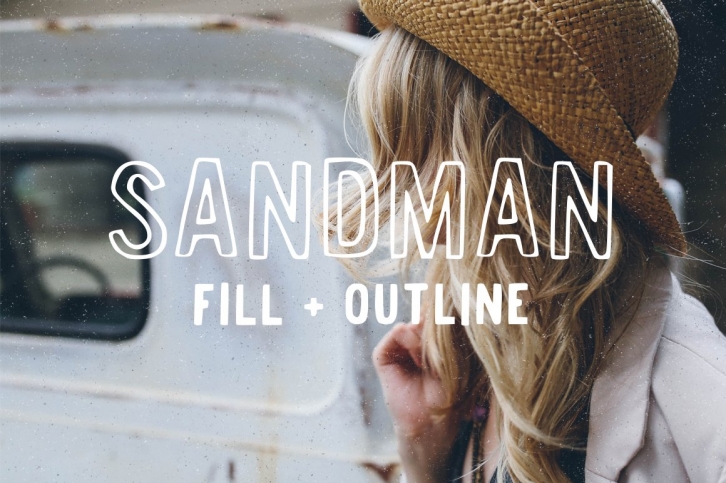
A handmade sans serif font. Two versions - Fill and Outline. Perfect for overlaying on photos...or really any project wanting a handcrafted feel. Inspired by, and created whilst listening to vintage tunes - such as "Mr. Sandman" by the Chordettes - hence the name.